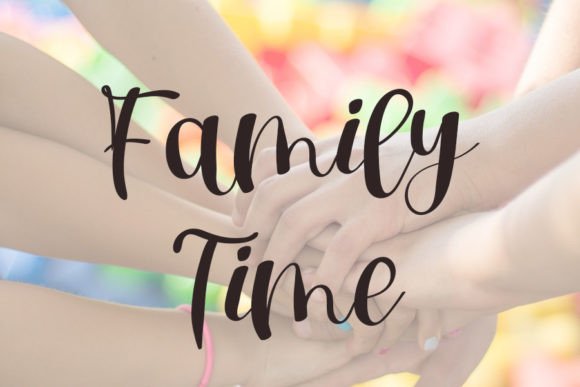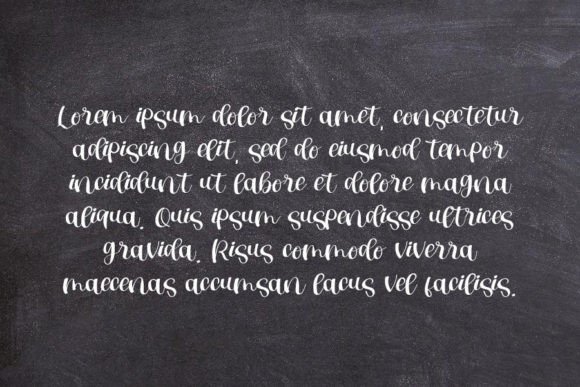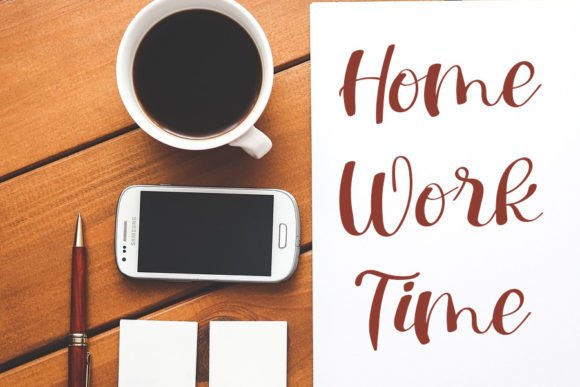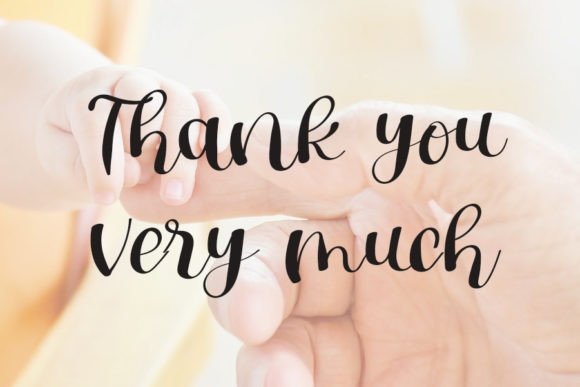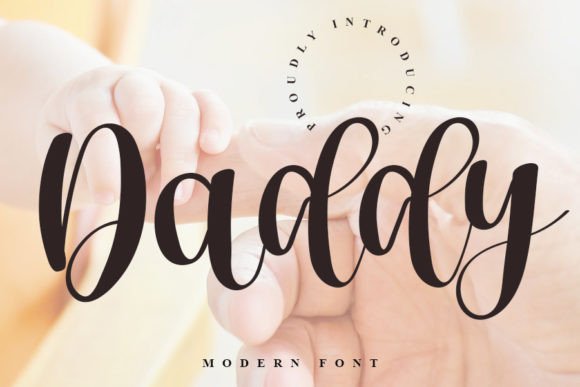
The Daddy Font: A Timeless and Elegant Choice for Designers and Crafters
Are you a designer or crafter looking for a font that exudes charm and elegance? Look no further than the Daddy Font. This beautiful handwritten font is perfect for adding a touch of sophistication to any design project. In this article, we’ll take a closer look at the Daddy Font, its features, and how it can elevate your designs.
What is the Daddy Font?
The Daddy Font is a stylish and elegant handwritten font that is perfect for a variety of design projects. Its flowing lines and cursive script make it an ideal choice for designs that require a personal touch. Whether you’re creating wedding invitations, thank you cards, quotes, greeting cards, logos, business cards, or any other design that needs a handwritten touch, the Daddy Font is an excellent choice.
Features of the Daddy Font
The Daddy Font has several features that make it a popular choice among designers and crafters. Some of its key features include:
- Elegant and charming: The Daddy Font has a timeless elegance that makes it perfect for designs that require a touch of sophistication.
- Handwritten script: The font’s handwritten script gives it a personal and unique touch that sets it apart from other fonts.
- Versatile: The Daddy Font can be used for a variety of design projects, from wedding invitations to business cards.
- Easy to read: Despite its elegant and cursive script, the Daddy Font is easy to read, making it perfect for designs that require a clear and concise message.
Uses of the Daddy Font
The Daddy Font is a versatile font that can be used for a variety of design projects. Some of the most popular uses of the font include:
- Wedding invitations: The Daddy Font is a popular choice for wedding invitations, as it adds a touch of elegance and sophistication to the design.
- Thank you cards: The font’s handwritten script makes it perfect for thank you cards, as it adds a personal touch to the message.
- Quotes: The Daddy Font is also great for quotes, as it adds a touch of elegance and sophistication to the text.
- Greeting cards: The font’s versatility makes it perfect for greeting cards, as it can be used for a variety of occasions, from birthdays to holidays.
- Logos: The Daddy Font can also be used for logos, as it adds a touch of elegance and sophistication to the design.
- Business cards: The font’s easy-to-read script makes it perfect for business cards, as it allows the viewer to quickly and easily read the contact information.
Why Choose the Daddy Font?
There are many reasons why designers and crafters choose the Daddy Font for their design projects. Some of the top reasons include:
- Unique and personal touch: The Daddy Font adds a unique and personal touch to designs, making them stand out from the crowd.
- Elegant and sophisticated: The font’s elegant and sophisticated script makes it perfect for designs that require a touch of luxury.
In conclusion, the Daddy Font is a timeless and elegant choice for designers and crafters. Its flowing lines and cursive script make it perfect for designs that require a personal touch. With its versatility, ease of use, and affordability, the Daddy Font is an excellent choice for a variety of design projects. Whether you’re creating wedding invitations, thank you cards, quotes, greeting cards, logos, business cards, or any other design that needs a handwritten touch, the Daddy Font is sure to impress.